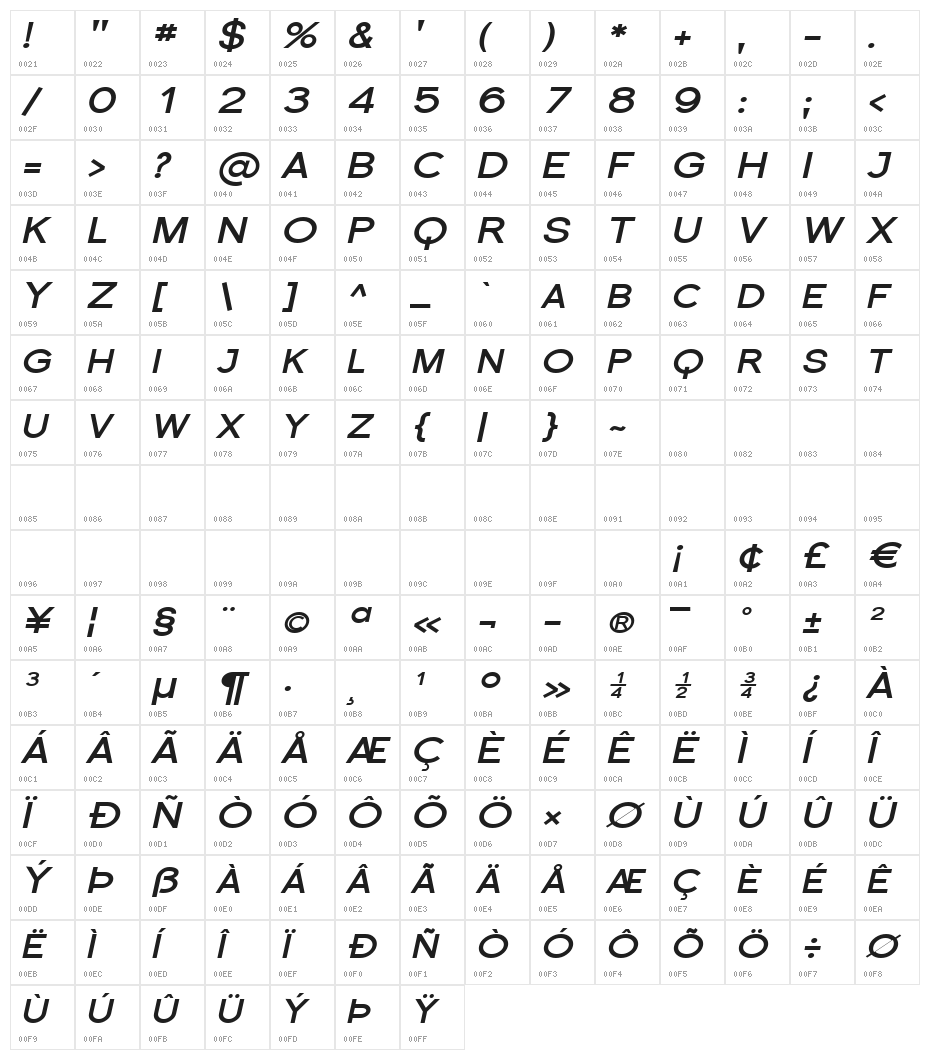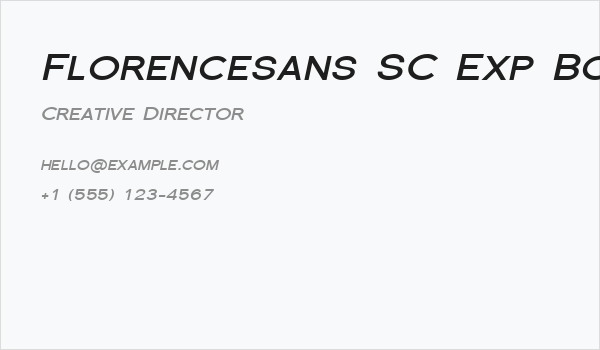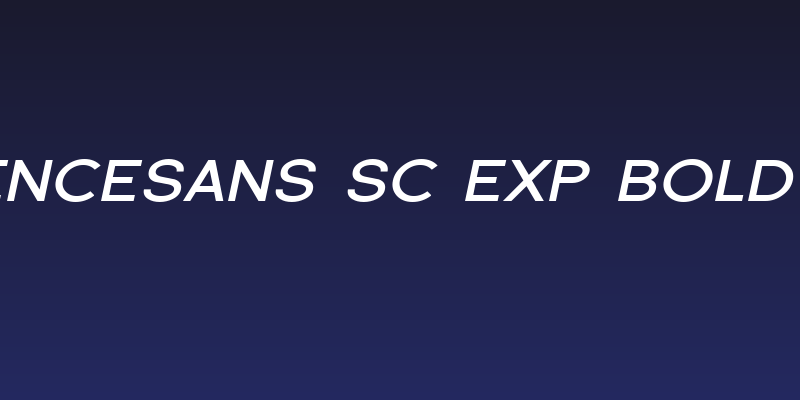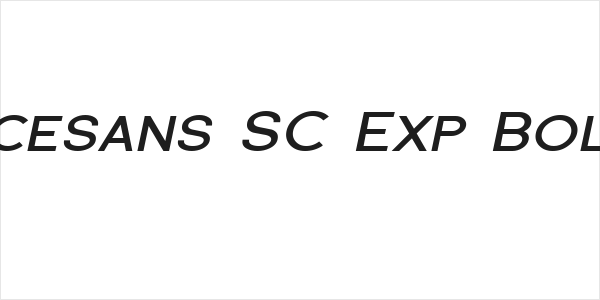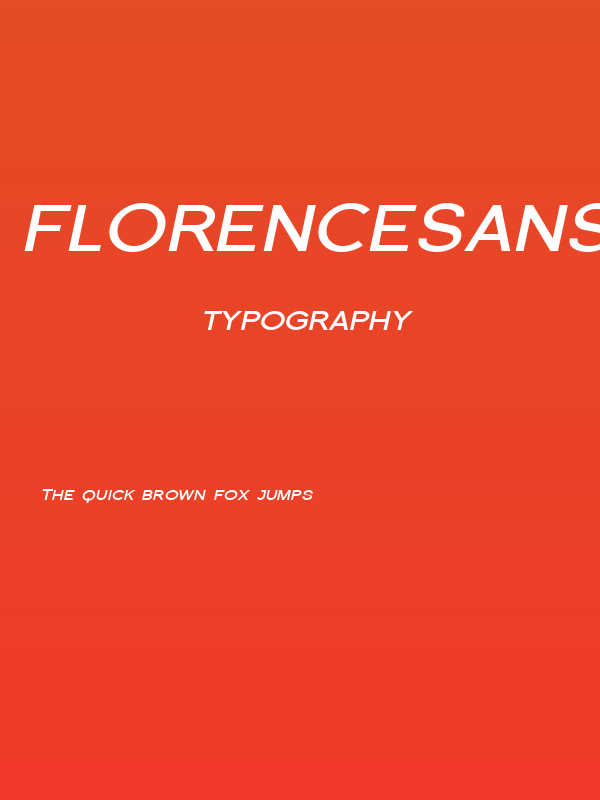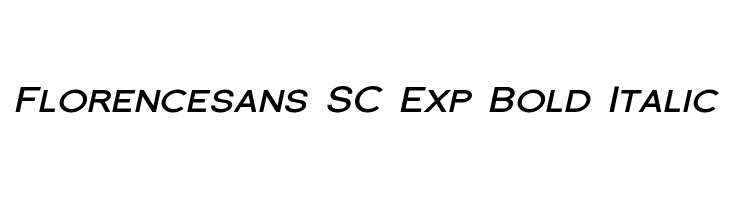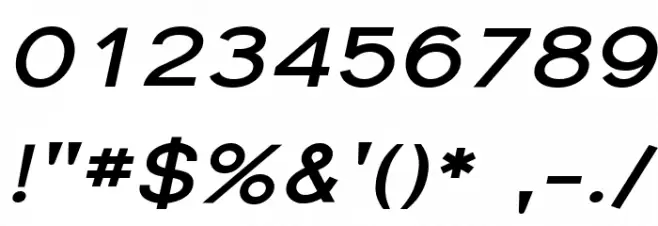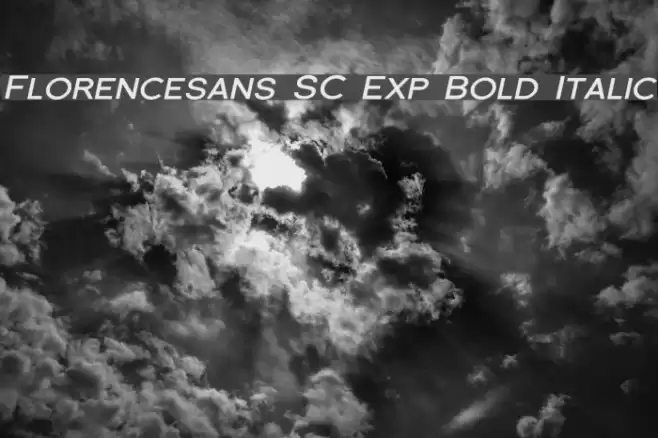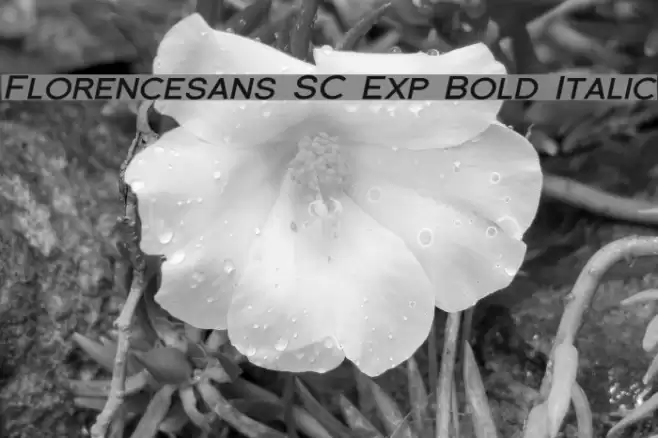
Florencesans SC Exp Bold Italic Font
Florencesans SC Exp Bold Italic Description
This font exhibits a modern and sleek design with a sans-serif style. The characters are bold and italicized, giving them a dynamic and forward-leaning appearance. The expanded width of the letters enhances readability while maintaining a stylish and contemporary look. The font features consistent stroke thickness, providing a medium contrast that balances clarity with visual interest. Its clean lines and smooth curves make it suitable for a variety of design applications, from digital to print media. The character spacing is normal, ensuring legibility across different sizes and contexts.
| Use Case | Headlines, Logos, Branding |
| Proposed Projects | Ideal for branding, advertising, headlines, and digital media projects requiring a modern and bold aesthetic. |